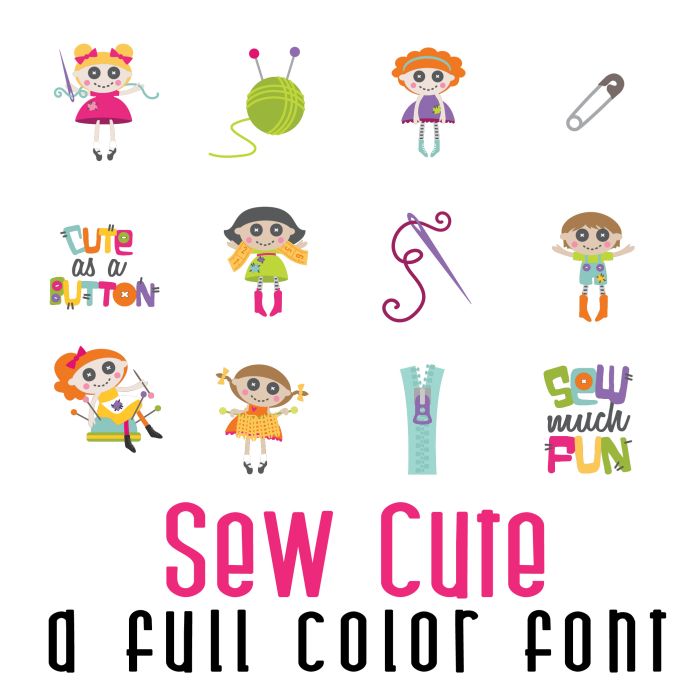
This fun full color font features 26 adorable sewn dollies with sewing accents! Perfect for cards, crafts, parties, gifts, decor, planner stickers, classrooms, scrapbook pages and more!